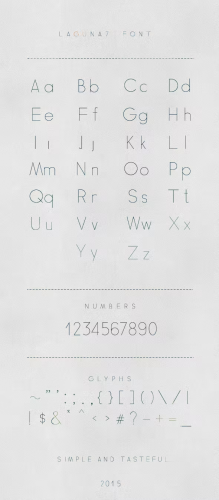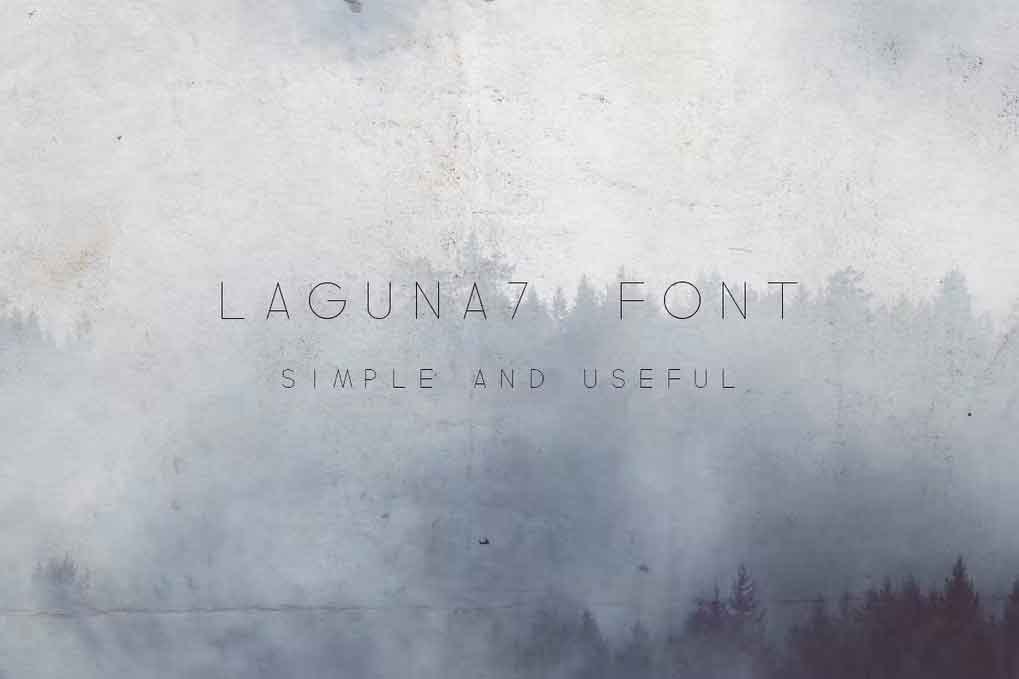
Laguna7 Font
This font is intended for use in branding, advertising, typography posters, etc. It’s simple monospaced font in OpenType format, which includes:
-Letters ABCDEFGHIJKLMNOPQRSTUVWXYZabcdefghijklmnopqrstuvwxyz
-Numbers 1234567890
-Glyphs ~!#$ ^x%x *()[]{}|:;”’<>,.?/+-_=% and others
Where Laguna7 Font works best
Laguna7 Font stays legible at small sizes, which makes it a strong choice for navigation, buttons and dashboards in web design and app interfaces.
Clean sans serifs like Laguna7 Font are the default language of SaaS, fintech and product branding.
What is Laguna7 Font good for?